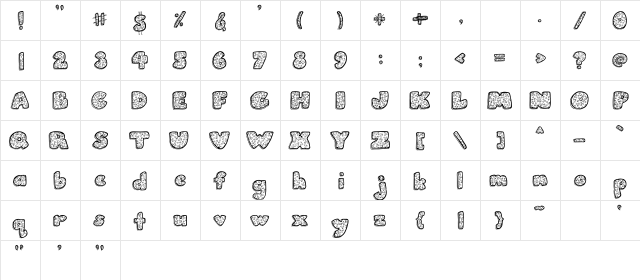
LOT Calico Regular
Design Context for LOT Calico Typeface
LOT Calico is a composed and adaptable typeface that performs quietly and consistently across a wide range of design contexts.